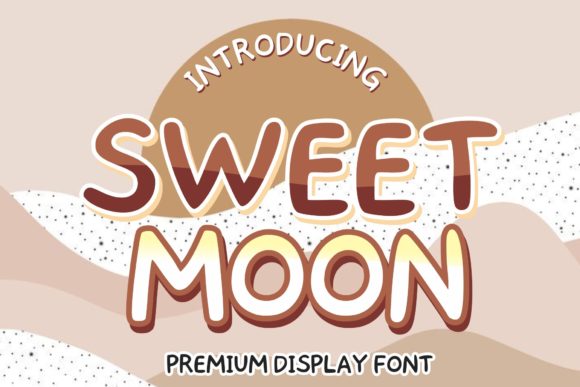
Feast your creative eyes upon Sweet Moon Font, the whimsical and playful display font that will ignite your designs with a burst of cheerful energy. Crafted with meticulous attention to detail by Riki.studio, this font is an absolute delight for anyone seeking to inject a touch of whimsy into their digital creations.
With its enchanting curves and playful strokes, Sweet Moon Font possesses an irresistible charm that will leave you smitten from the first glimpse. Whether you're a seasoned designer or just starting your creative journey, this font will effortlessly elevate your projects, making them stand out from the mundane and ordinary.
Unleash your imagination and let Sweet Moon Font lead you on a captivating adventure through the world of design. This font will add a spark of joy to your digital designs, whether you're creating eye-catching logos, vibrant posters, or captivating social media graphics. The possibilities are endless, and the only limit is your imagination.
So why settle for ordinary fonts when you can embrace the extraordinary? Dive into the world of Sweet Moon Font today and experience the transformative power of a truly remarkable display font. Let your creativity soar, let your designs shine, and let Sweet Moon Font be your guiding light on this enchanting journey of visual storytelling.